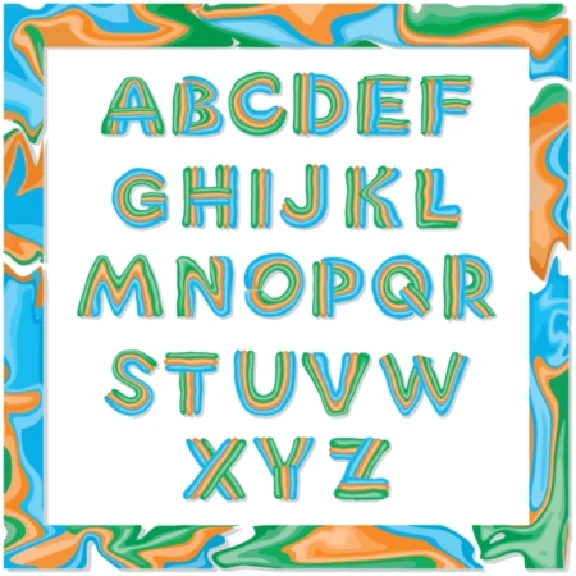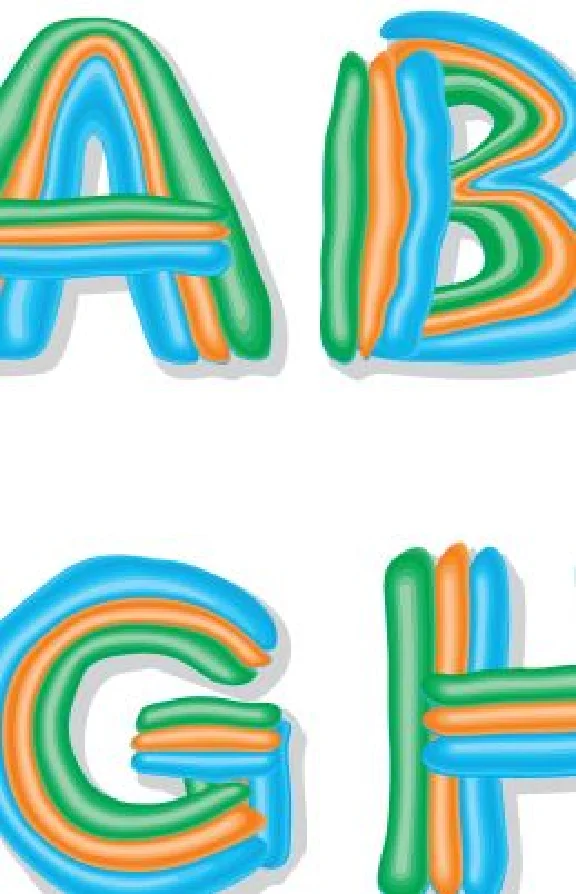
Vector decorative font letter from plasticine
Letters, all the letters of the English alphabet, vector decorative fonts for titles and registration. Letters as if sculpted from colored plasticine. Direct Link to download the archive. The archive files are vector eps and cdr, as well as high-resolution raster files: jpg and png with a transparent background.